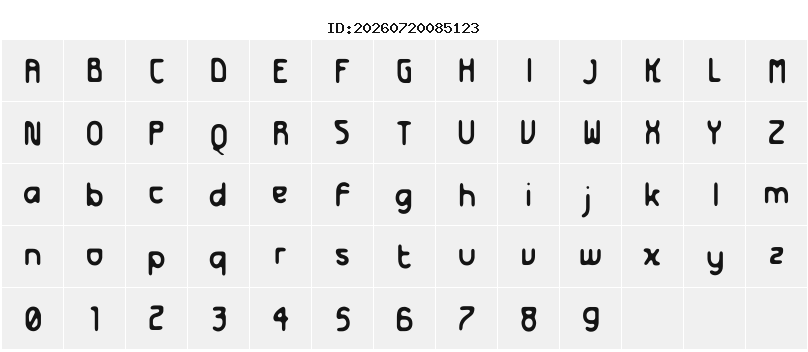
• Font Name: Futurex Distro
• Full Font Name: Futurex Distro
• Designer: ;-Peter Ramsey at Swordfish Design
• Description: Flowers grow in the rubble
About Futurex Distro.ttf
Futurex Distro.ttf is a modern, elegant sans-serif font designed for ultimate readability and visual harmony. Perfect for branding, headlines, web design, and print materials.